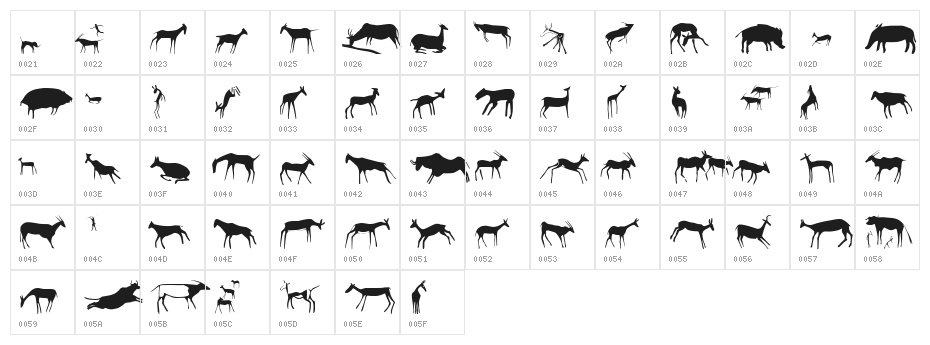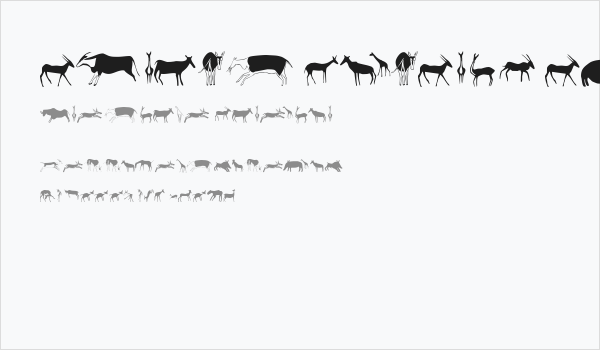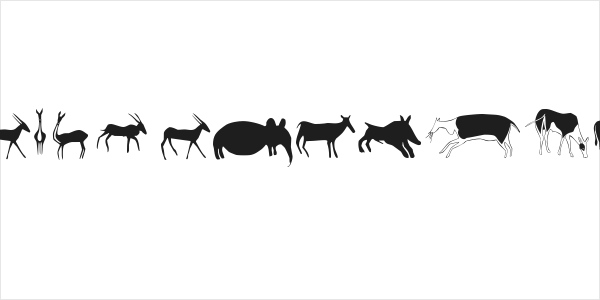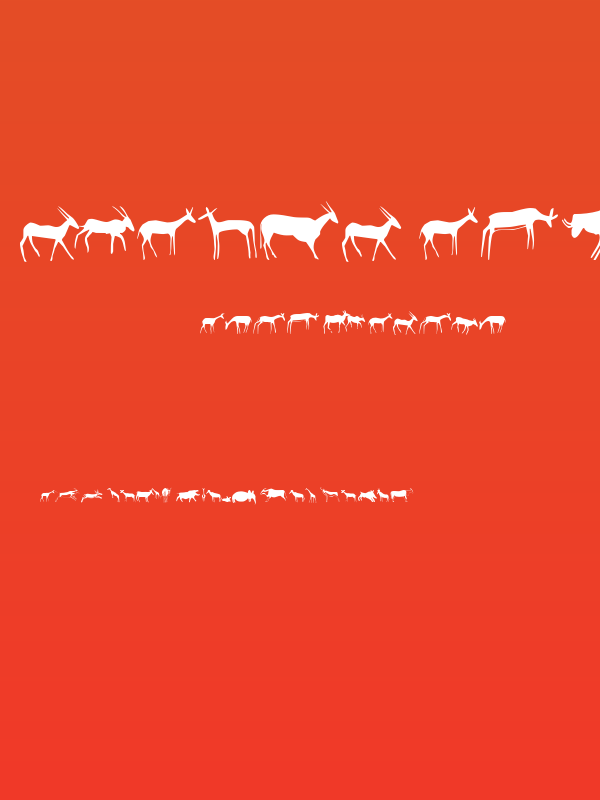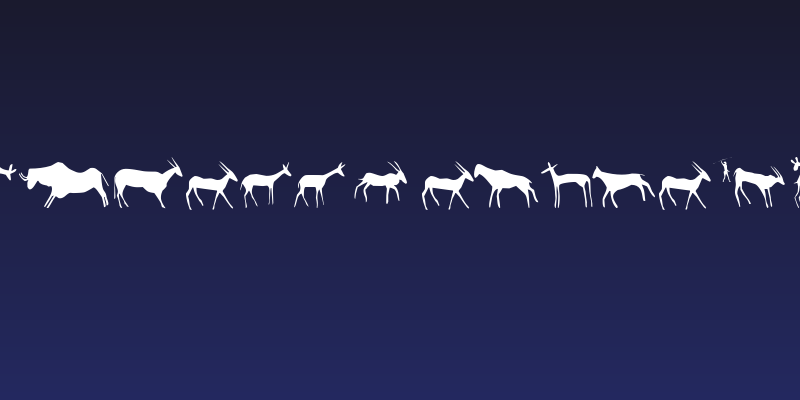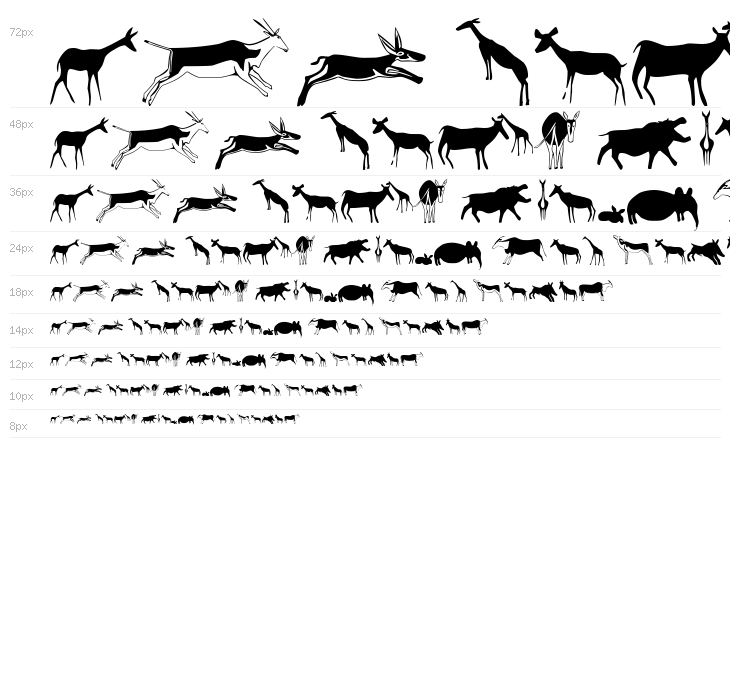
Afrika RockArt F Animals1 Regular Font
Afrika RockArt F Animals1 Regular Description
A collection of animal silhouettes inspired by African rock art, featuring simplified and stylized forms with minimal detail, evoking ancient petroglyphs and cave paintings. The glyphs vary in size and posture, capturing a sense of movement and primitive artistry.
| Overall Style | Decorative, Primitive, Ethnic |
| Use Case | Logos, Posters, Decorative elements, Themed graphics |
| Proposed Projects | Educational materials, cultural posters, museum displays, themed event graphics, children's books, decorative borders. |